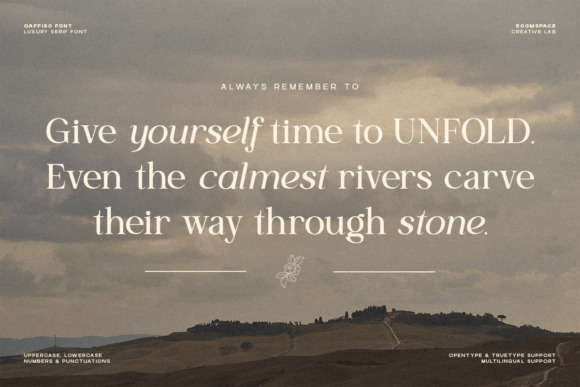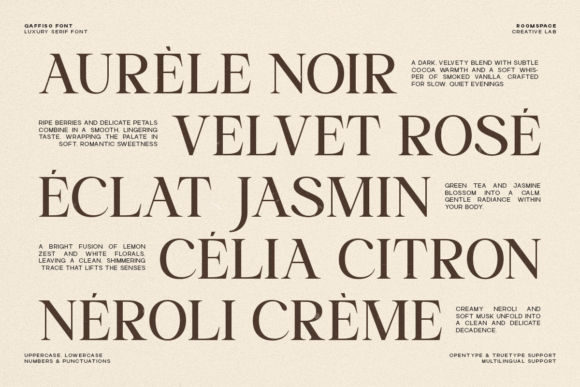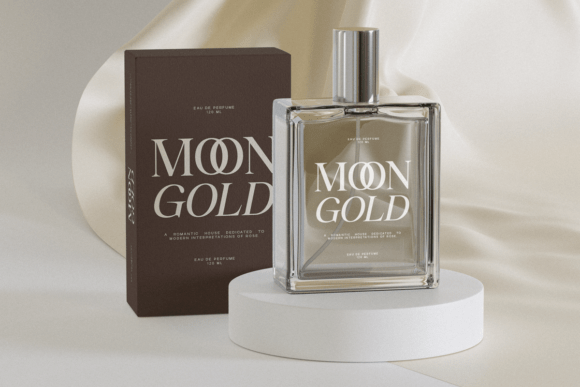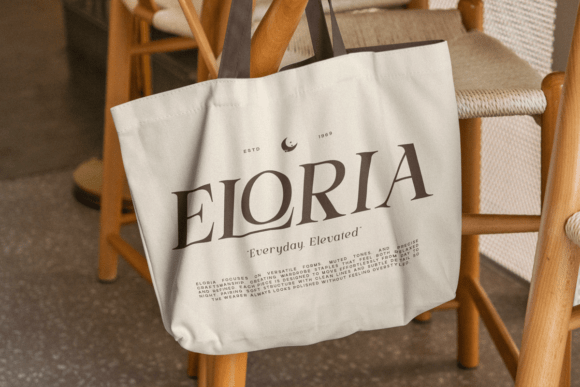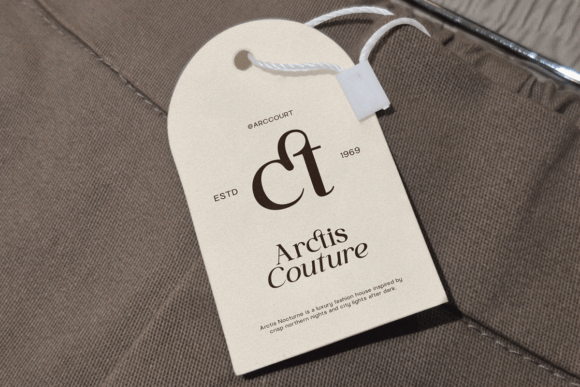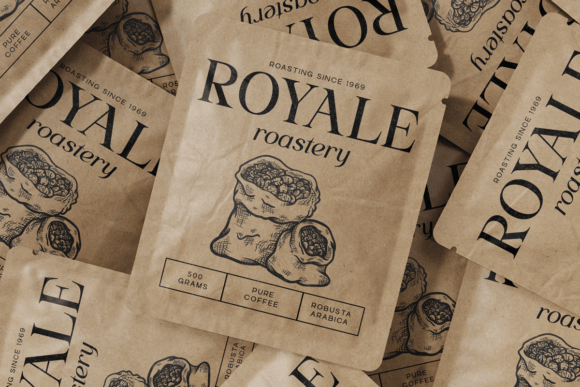
Introduction to Qaffiso Font
Qaffiso is a luxury serif font characterized by its graceful curves, refined contrast, and modern elegance.
Its tone feels sophisticated, premium, artistic, and timeless, perfect for upscale branding, editorial layouts, boutique packaging, wedding stationery, and luxury lifestyle campaigns Qaffiso blends high-end serif tradition with contemporary smooth forms, giving every design a polished, graceful, and elevated visual presence.
Key Features of Qaffiso Font